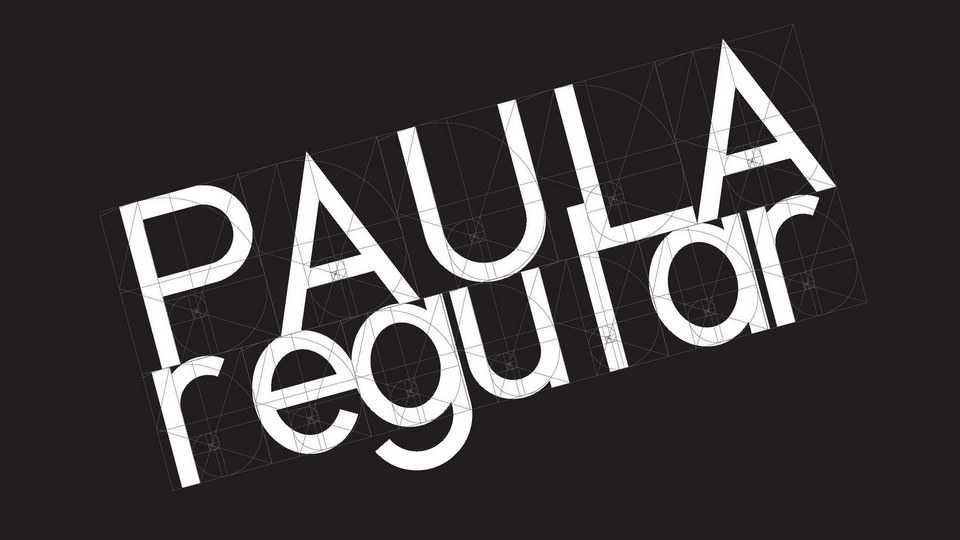
Download Paula Regular font, a contemporary clean sans serif with a subtle touch of Art Déco. Ordinary yet non-ordinary: sharp angles make good friendship with oval curves, all born from the same source which is the Golden Ratio’s proportion.
Designer: Paolo Minola